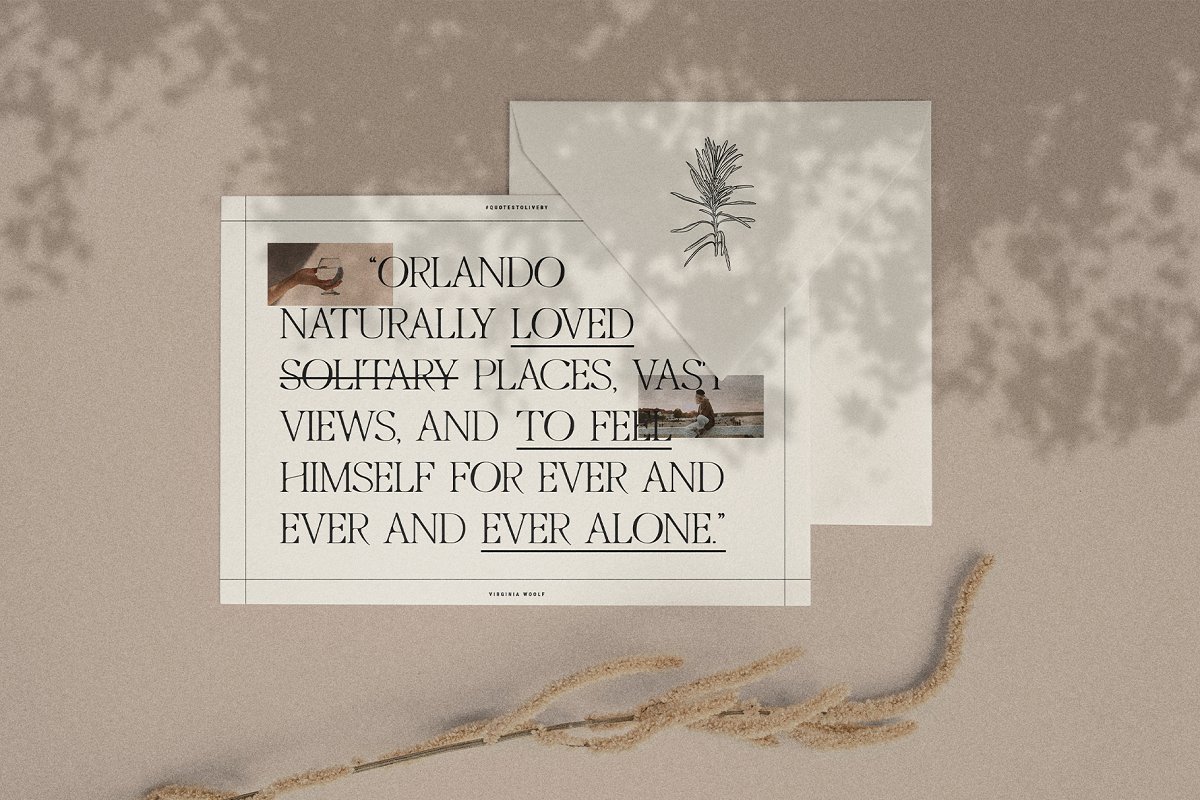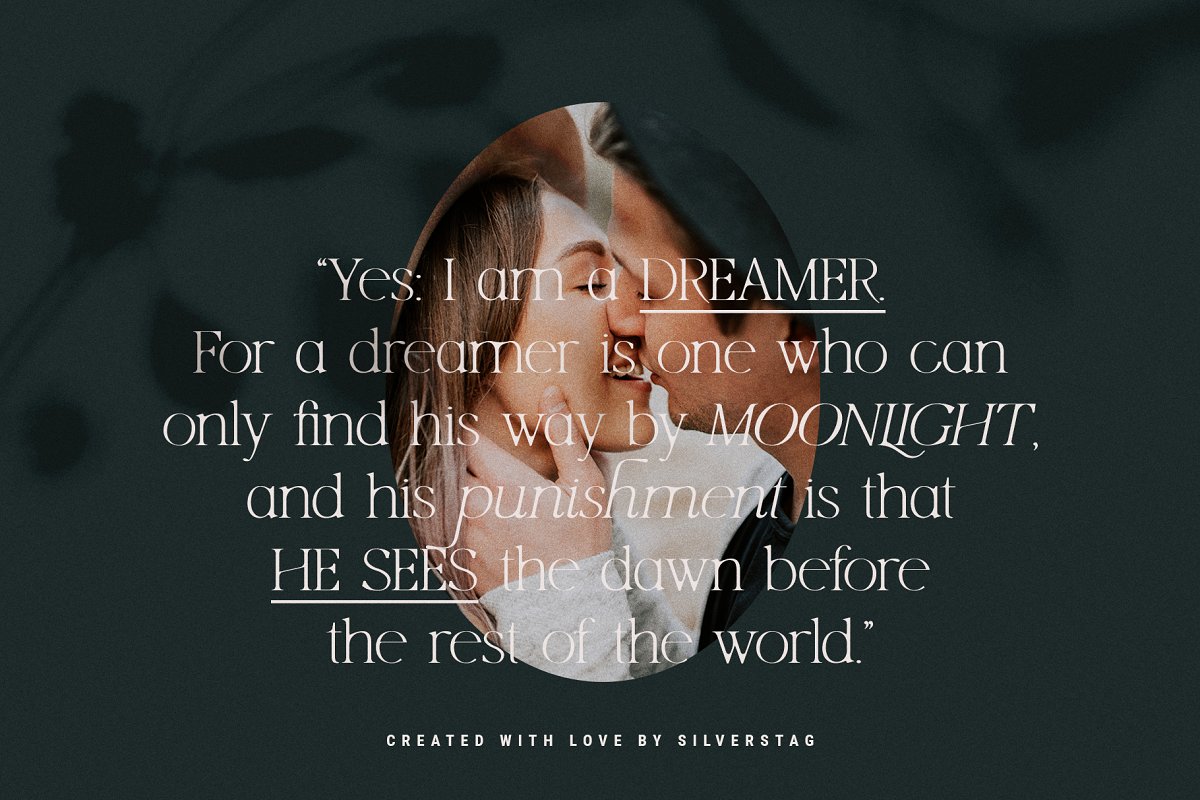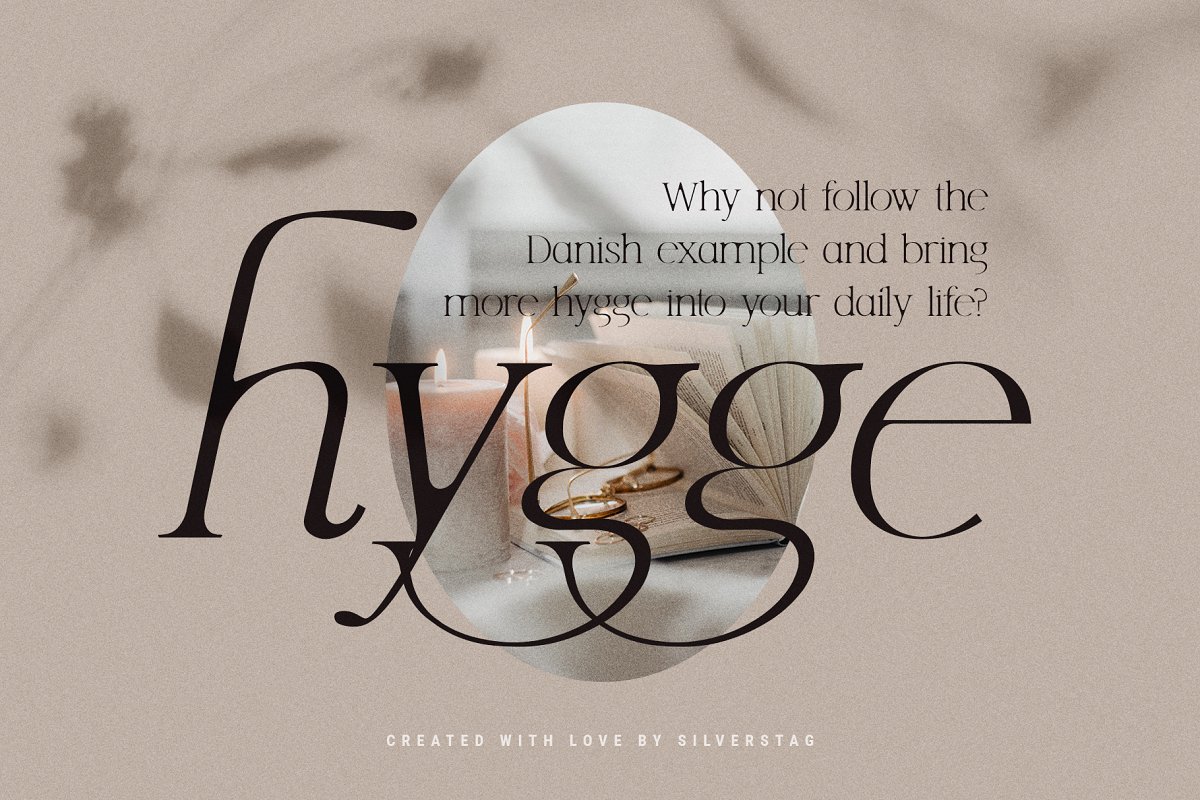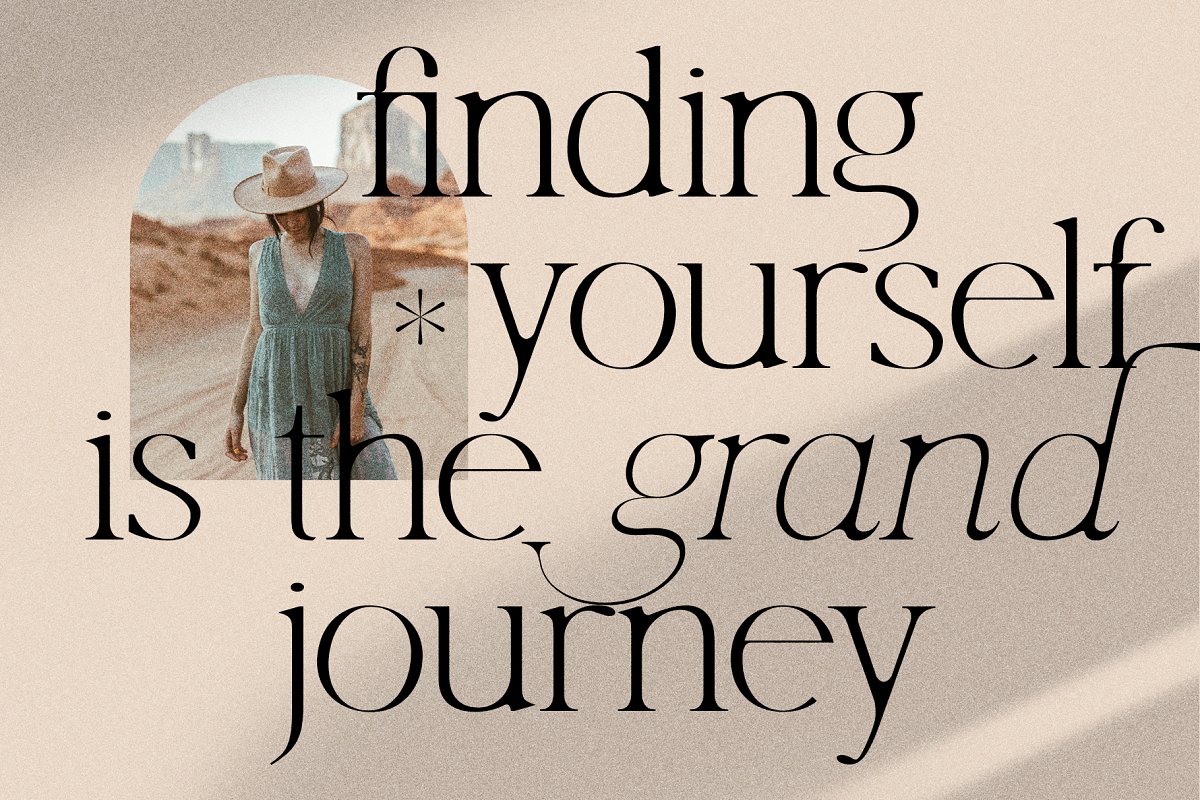
About the Lucky Feelings Serif Family Font
Hey guys, are you already enjoying your summer vacation? Even if you’re not, I am sure you are ready for one Lucky Feelings! Check out my new unique take on a classical serif font, I have created some pretty different letters and ligatures that will make al your designs stand out, This serif font family includes for font versions – regular, italic, bold and bold italic so you can mix and match them until you are 100% satisfied with your work!So, whether you have a client that needs a new chic logo, or you’re designing your social media posts
Maybe you’re preparing your wedding mood board, stationery, invitations, Lucky Feelings Ligature font is just perfect for all of that and more, Check out the photos I have prepared for you to see what you can do with it and happy creating!Lucky Feelings – Serif Font Family includes:LuckyFeelings